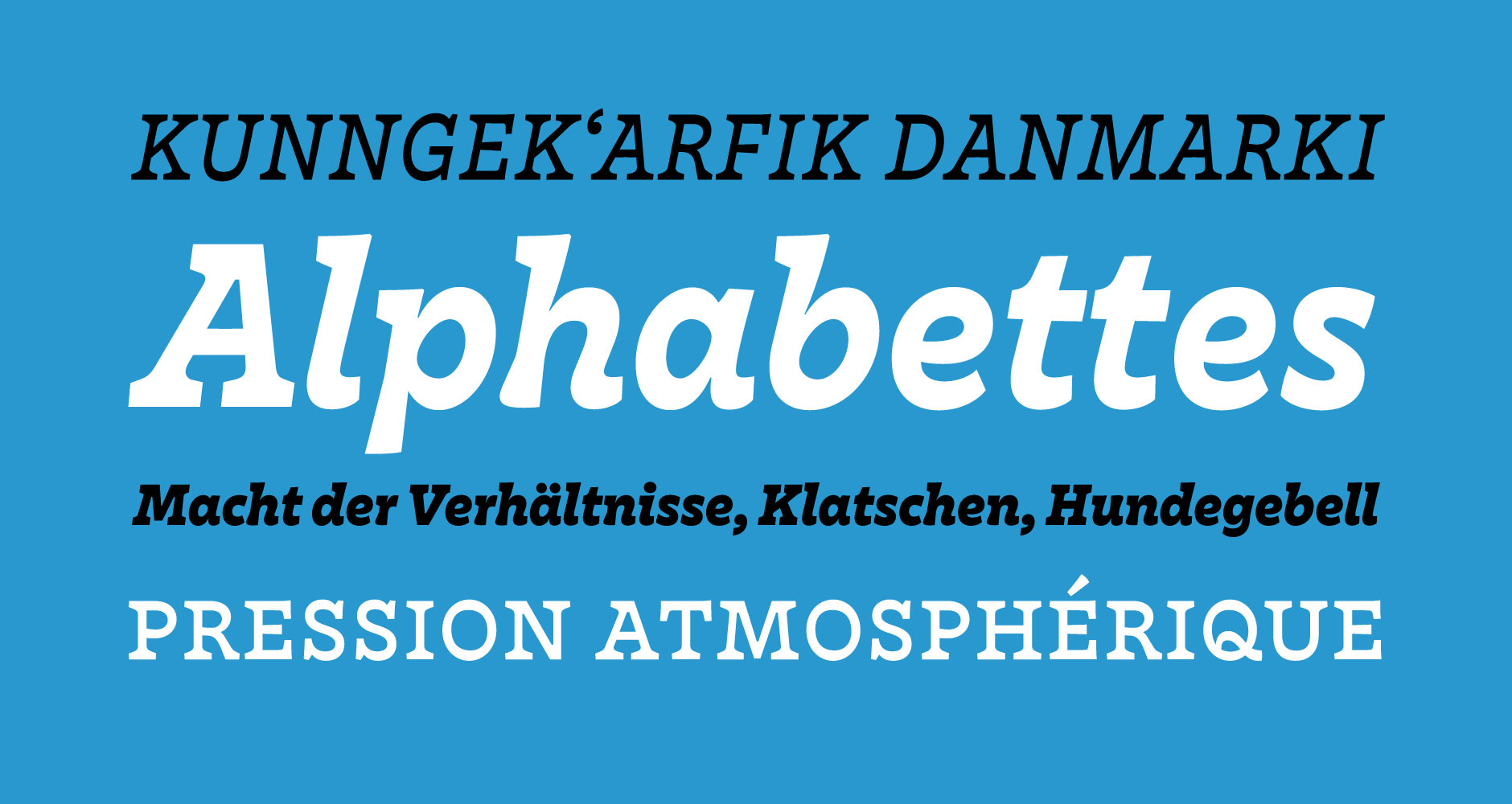
Nordvest Font
Nordvest Font is perfect for Scandinavian design studios, Nordic wellness brands, minimalist lifestyle companies, sustainable fashion labels, outdoor adventure gear, modern furniture retailers, eco-friendly product packaging, Arctic tourism campaigns, Norwegian fjord cruise materials, and progressive environmental organizations. This refined typeface excels in applications where Nordic simplicity, environmental consciousness, and Scandinavian design philosophy are fundamental elements.
Nordvest Font is exciting because it captures the essence of Nordic design philosophy through its clean, purposeful letterforms and understated elegance that reflects the natural beauty of Scandinavian landscapes. Its carefully balanced construction features the characteristic simplicity and functional beauty that defines Nordic design culture, with subtle curves and precise proportions that create a sense of calm sophistication and environmental harmony. The font's organic character delivers authentic Nordic appeal while maintaining exceptional clarity across all applications.
The Nordvest Font family includes Thin, Light, Regular, Medium, Bold, and Heavy weights, each available in Roman and Italic styles. This comprehensive twelve-font family provides extensive design flexibility while maintaining the consistent Nordic aesthetic that characterizes Scandinavian design culture. Advanced OpenType features include contextual alternates, stylistic sets, and refined spacing that optimize performance for both intimate communications and large-scale environmental campaigns.
Professional designers choose Nordvest Font for its ability to convey environmental responsibility, Nordic sophistication, and sustainable design values. The font's balanced personality works beautifully in both corporate communications and consumer applications where authenticity and environmental consciousness are paramount. Its clean architecture makes it ideal for brands seeking to communicate sustainability, natural beauty, and progressive Nordic values.
The natural elegance of Nordvest Font elevates brand communications with its Nordic sophistication and environmental consciousness. Its organic character appeals to environmentally aware audiences while maintaining the clarity and professionalism required for international sustainable business communications and progressive environmental initiatives.
Embrace Nordic sustainability with Nordvest Font and discover why environmentally conscious brands and Scandinavian design leaders choose this exceptional typeface for their most authentic and environmentally responsible design communications.